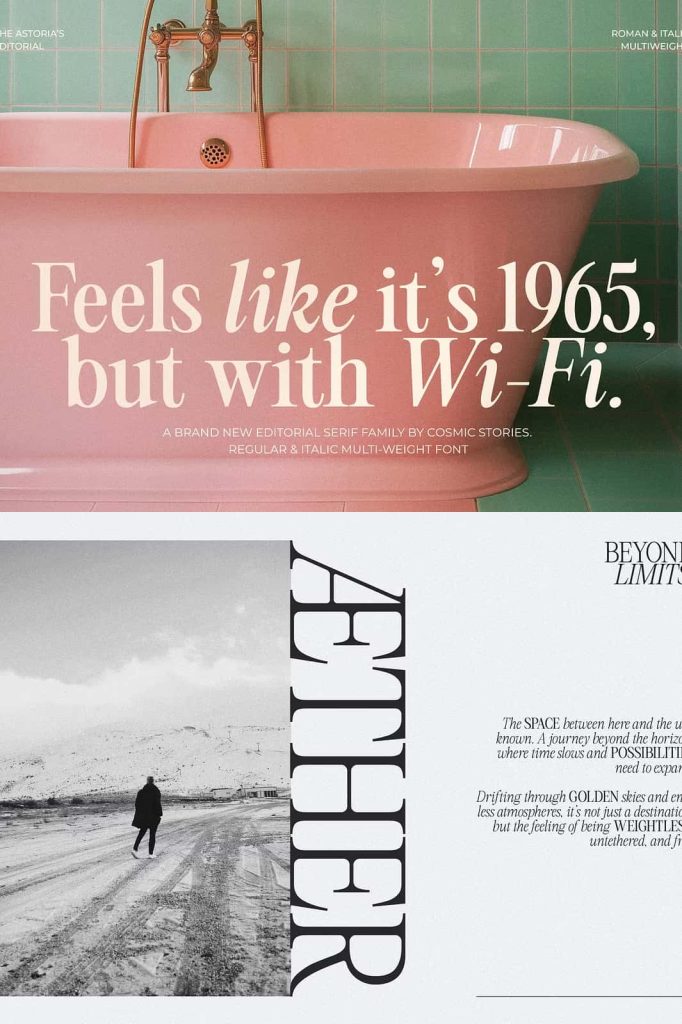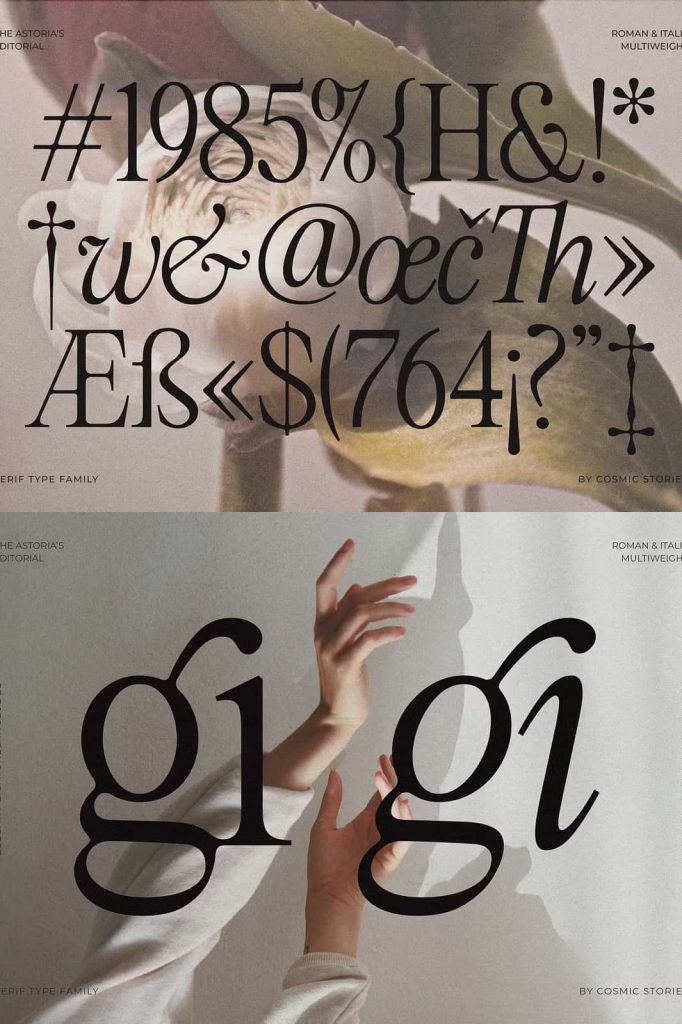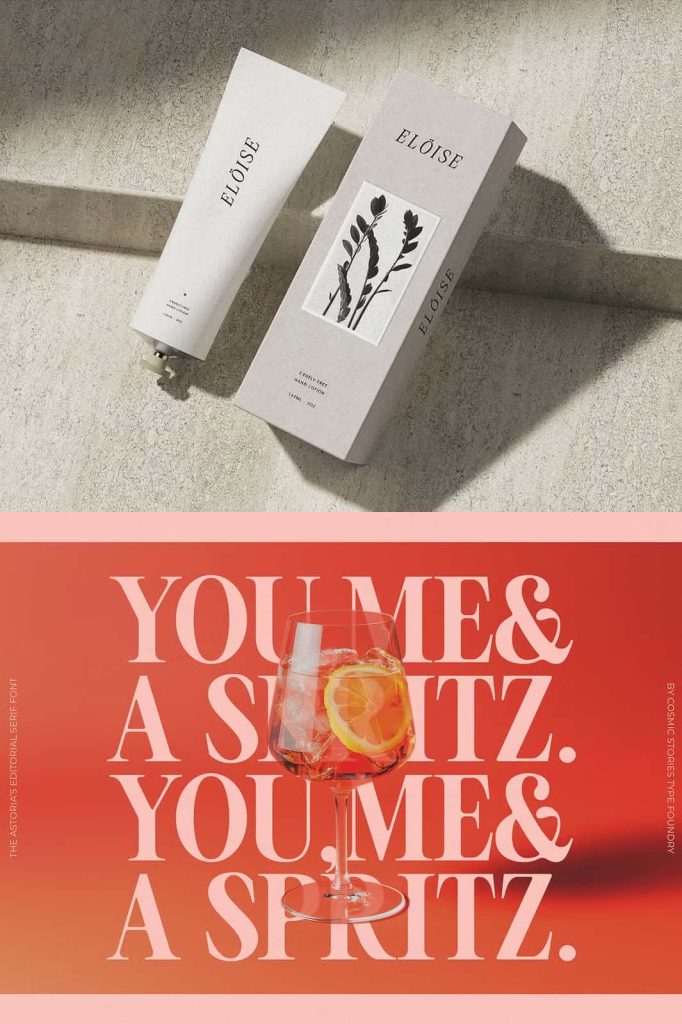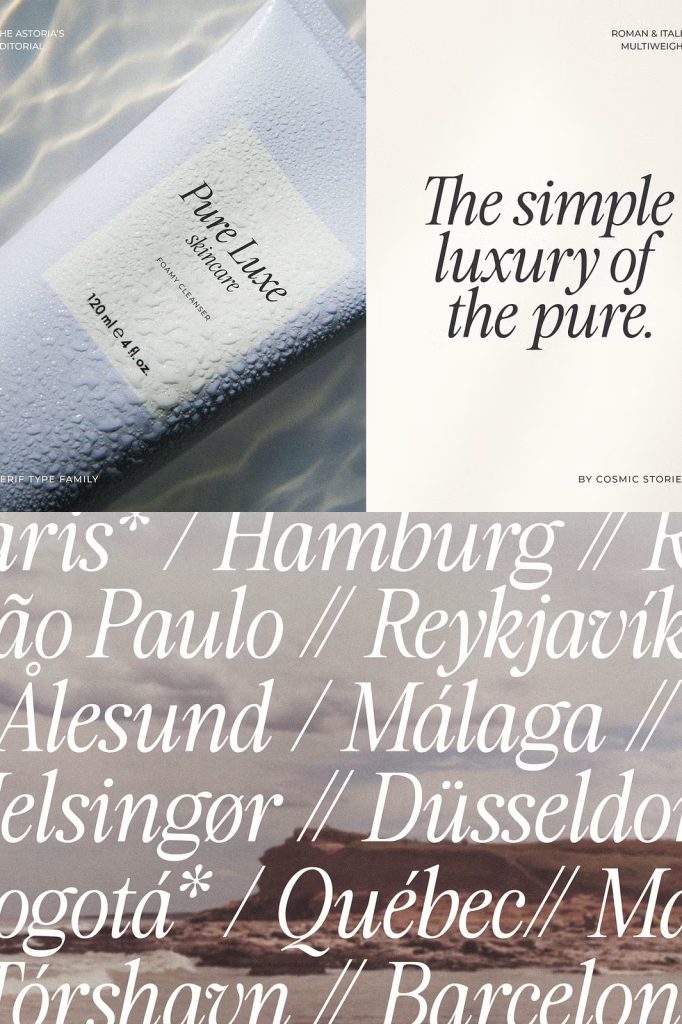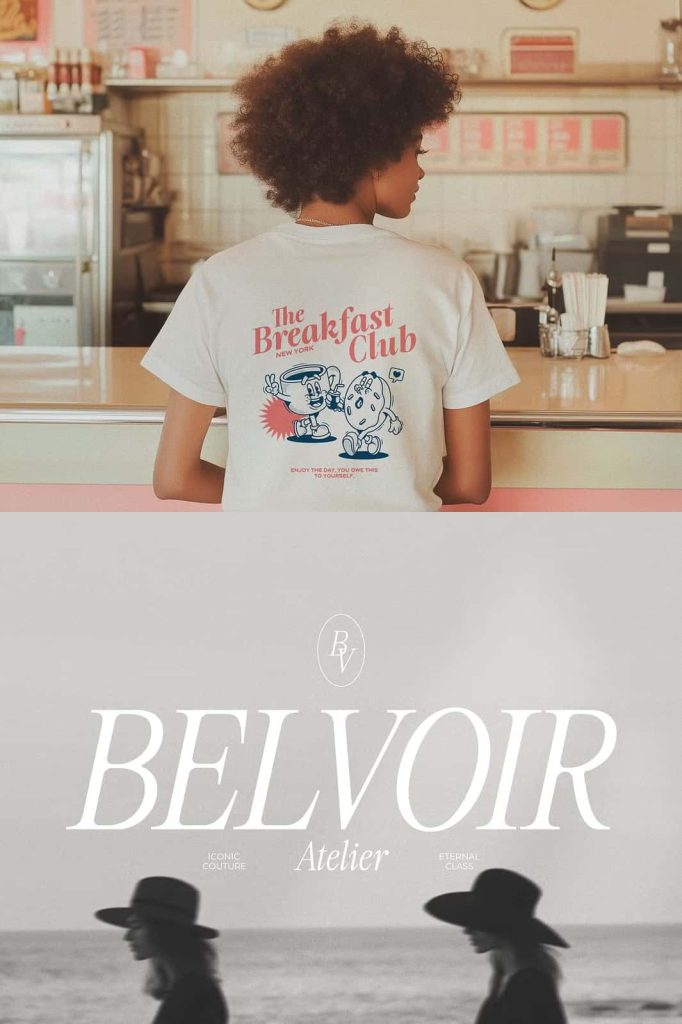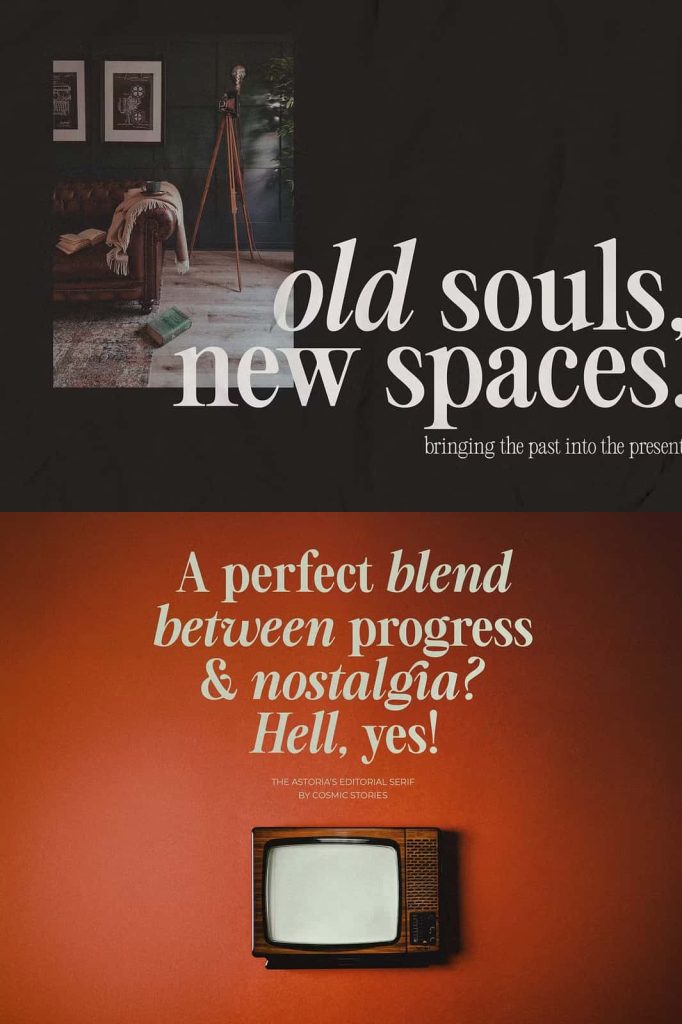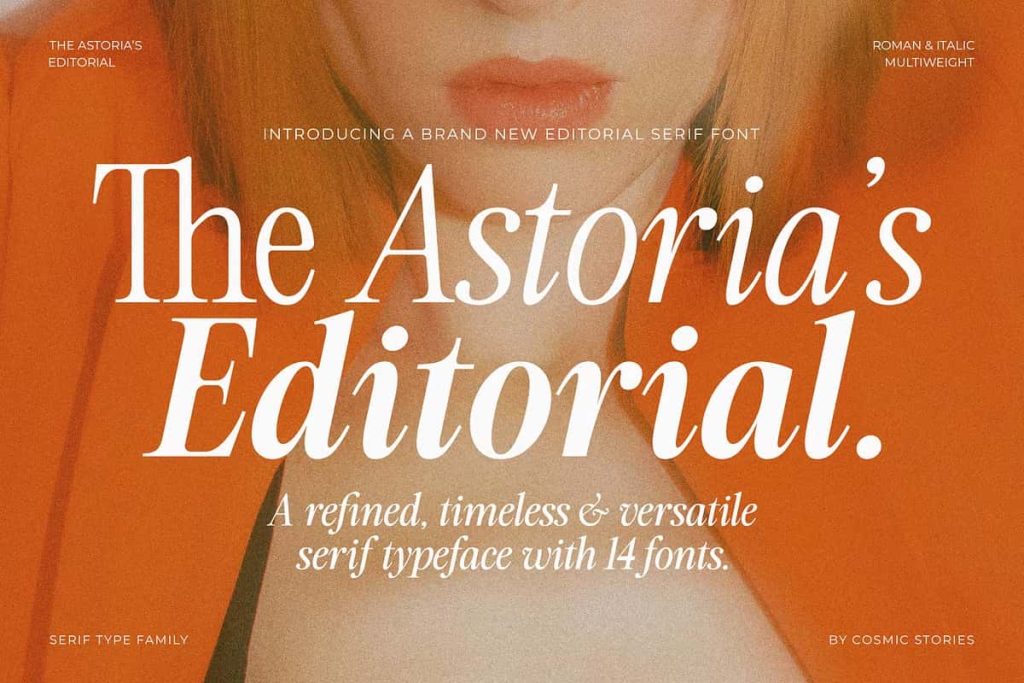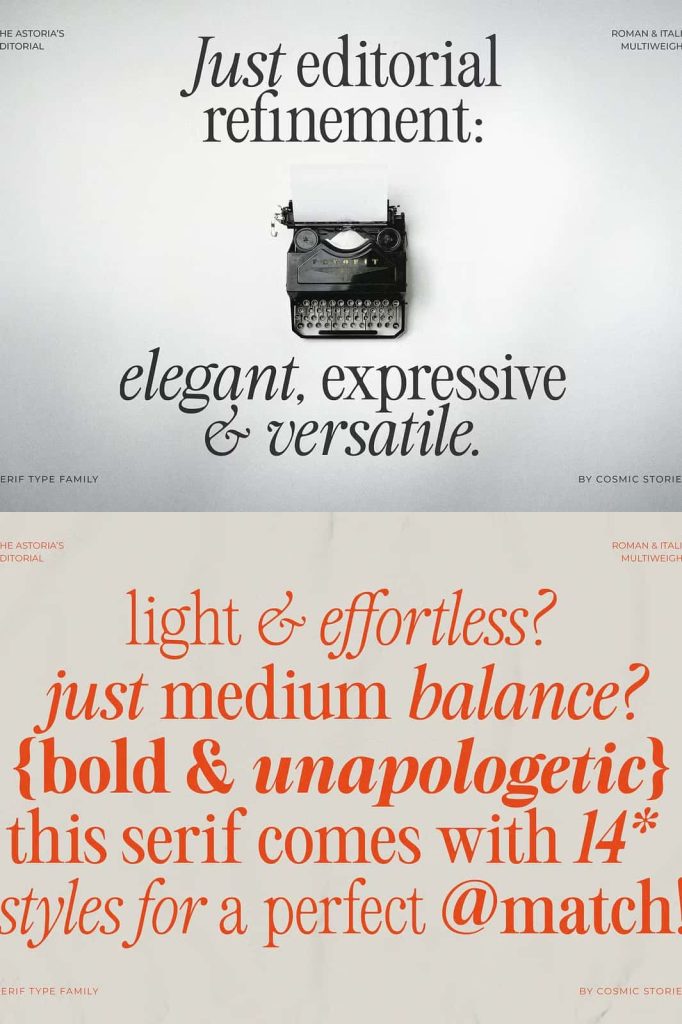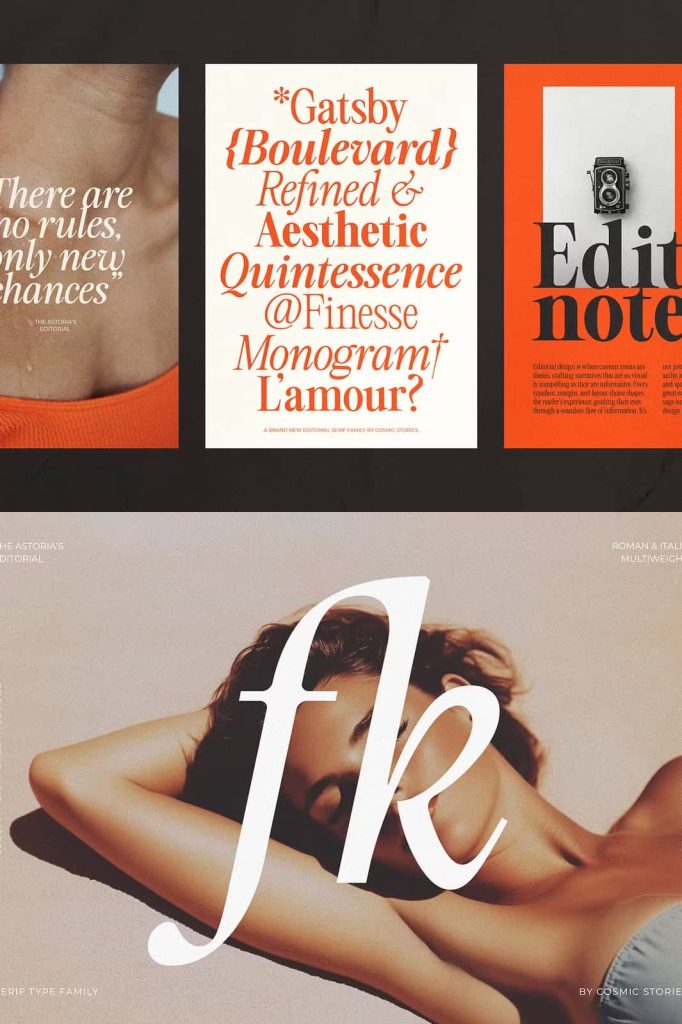
Astoria’s Editorial Serif – Retro Elegance with Modern Versatility
Astoria’s Editorial Serif is a truly versatile editorial serif font that effortlessly blends retro charm with a refined modern touch. This typeface captures the elegance of classic advertisement typography while embracing a bold retro soul. It draws inspiration from vintage publishing layouts and iconic signage, then reshapes those influences into a contemporary design tool for today’s creative professionals.
Designed for designers who demand both timeless sophistication and modern flexibility, Astoria’s Editorial Serif delivers strong character, confident structure, and expressive detail. It empowers you to create polished layouts, striking headlines, and unforgettable brand identities with ease and precision.
A Classic Editorial Serif with Retro Influence
Astoria’s Editorial Serif channels the spirit of traditional publishing and old-school advertising. Its carefully shaped serifs, balanced contrast, and elegant proportions reflect the golden era of print design. At the same time, the font introduces subtle modern refinements that keep your typography fresh and relevant.
This editorial serif font does not simply imitate the past. It reinterprets it. The letterforms maintain clarity and authority while adding warmth and personality. The result is a typeface that feels nostalgic yet progressive, bold yet graceful.
Timeless Sophistication for Modern Design
Astoria’s Editorial Serif enhances your typography with a sense of confidence and structure. The strong vertical stress and refined curves help you create impactful headlines and compelling editorial layouts. Whether you design a magazine spread or a high-end brand campaign, this font reinforces your message with elegance.
The typeface adapts beautifully to both large display sizes and smaller body text. Use it to craft commanding titles, refined pull quotes, or sophisticated subheadings. Its versatility allows you to maintain visual consistency across multiple design elements while preserving creative freedom.
Perfect for Publishing and Editorial Projects
This editorial serif font excels in publishing environments. Designers can rely on Astoria’s Editorial Serif to shape magazine covers, feature articles, book layouts, and newspaper-inspired compositions. The font strengthens hierarchy, improves readability, and adds a professional tone to every page.
Its retro-modern aesthetic makes it especially effective for fashion editorials, lifestyle publications, cultural magazines, and premium content platforms. Astoria’s Editorial Serif commands attention without overpowering the overall design, making it an essential asset for contemporary publishing.
Elevate Branding and Advertising Typography
Astoria’s Editorial Serif carries the elegance of classic advertisement typography with a bold retro soul. Use it to design memorable logos, luxury branding systems, and impactful promotional materials. The font communicates trust, heritage, and sophistication while maintaining a modern edge.
It works exceptionally well for boutique brands, creative agencies, upscale restaurants, beauty labels, and heritage-inspired businesses. The strong serif details enhance brand recognition and give your visual identity a distinctive and authoritative presence.
Inspired by Vintage Signage and Classic Print
The design of Astoria’s Editorial Serif draws inspiration from vintage signage and traditional print craftsmanship. You can see this influence in its confident letterforms, refined curves, and expressive serifs. These characteristics allow you to create typography that feels authentic and rooted in design history.
At the same time, the typeface introduces contemporary spacing and balanced proportions that ensure clean digital performance. This fusion of old and new gives designers the flexibility to work across print and digital platforms without compromising style or readability.
Versatile Across Digital and Print Media
Astoria’s Editorial Serif performs beautifully in both print and digital formats. Use it for website headers, landing pages, portfolio showcases, and brand storytelling sections. Its refined structure maintains clarity on screens while preserving its rich editorial character.
In print applications, the font enhances posters, brochures, packaging, and high-end stationery. It adds depth and sophistication to visual compositions and helps you build cohesive design systems that feel intentional and premium.
Design with Confidence and Character
Astoria’s Editorial Serif gives you the power to design with clarity, elegance, and authority. It merges retro charm with modern versatility, allowing you to create typography that feels both nostalgic and forward-thinking. This editorial serif font supports bold creative decisions while maintaining timeless appeal.
Choose Astoria’s Editorial Serif when you want to deliver refined editorial layouts, impactful branding, and sophisticated advertising typography. Let it shape your designs with classic influence and contemporary precision, and transform your creative vision into a statement of enduring style.